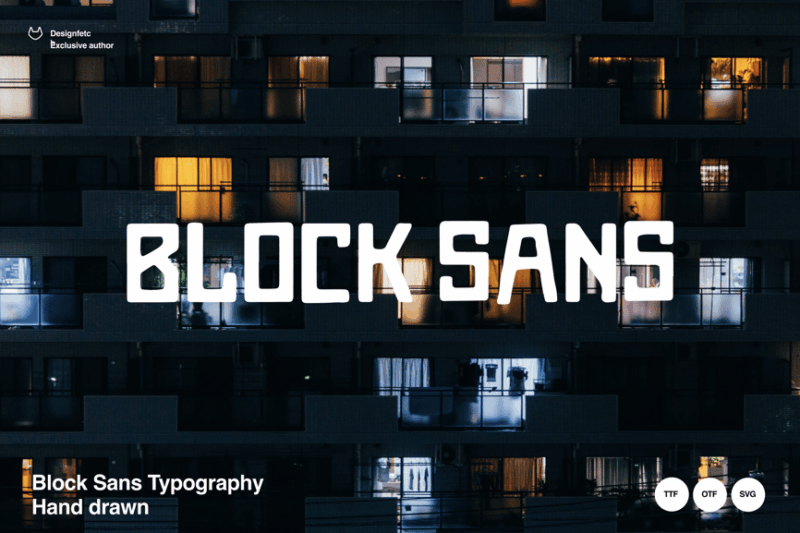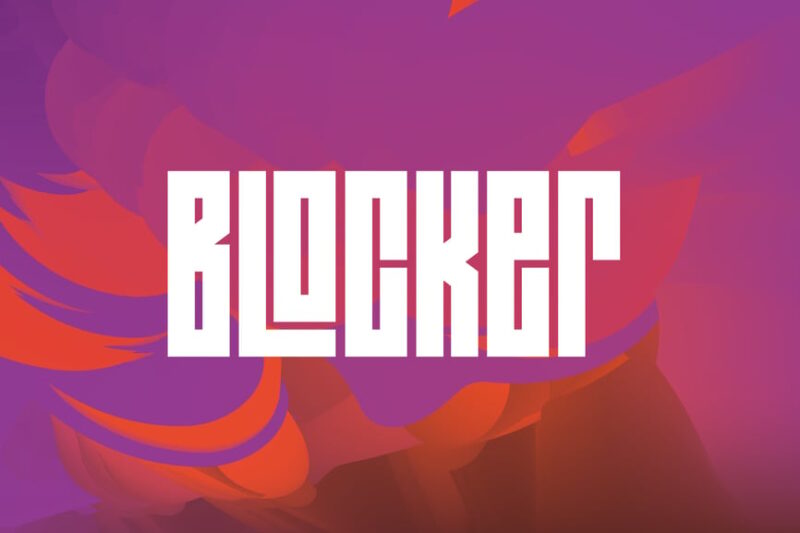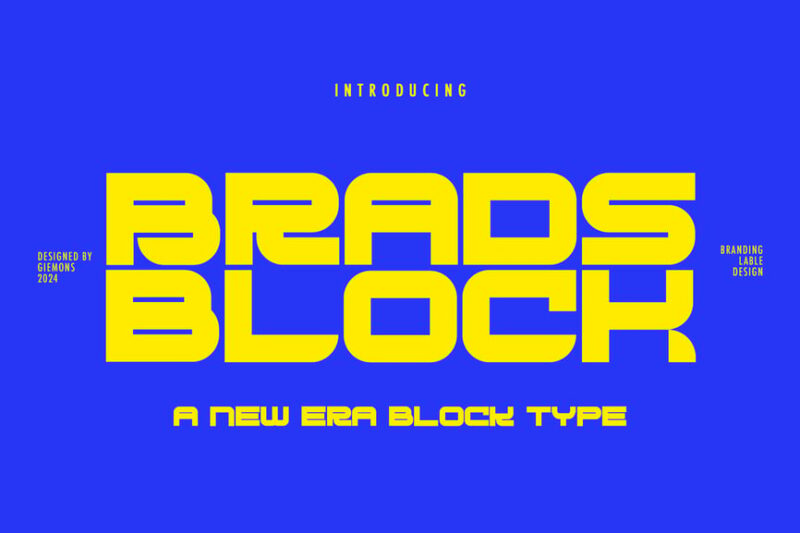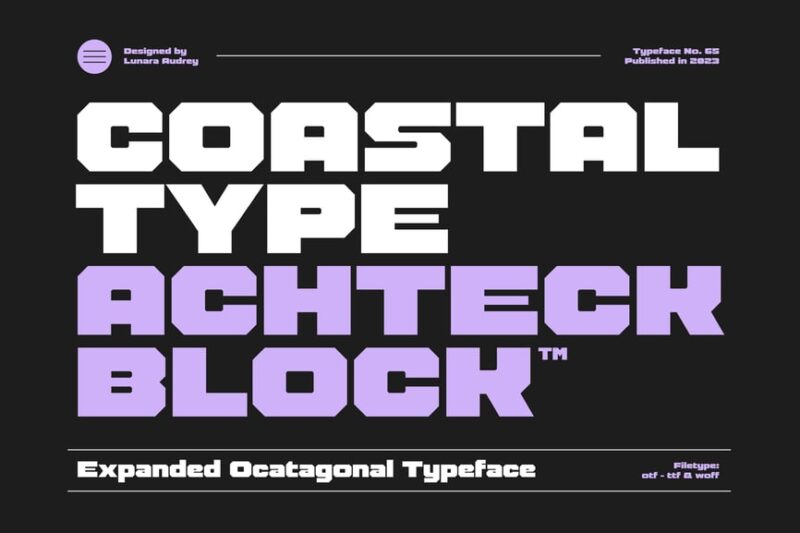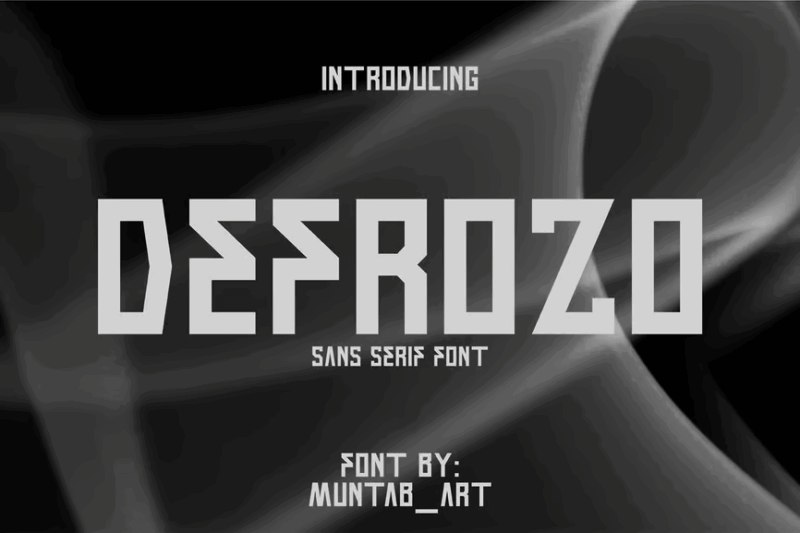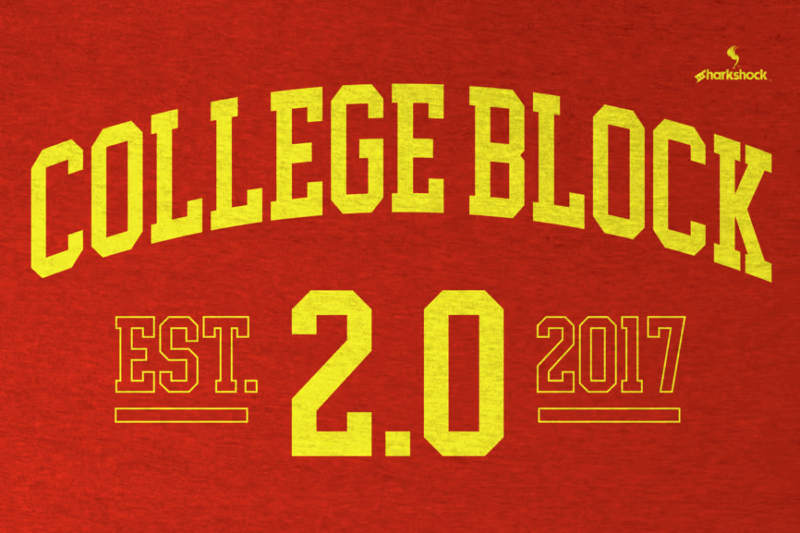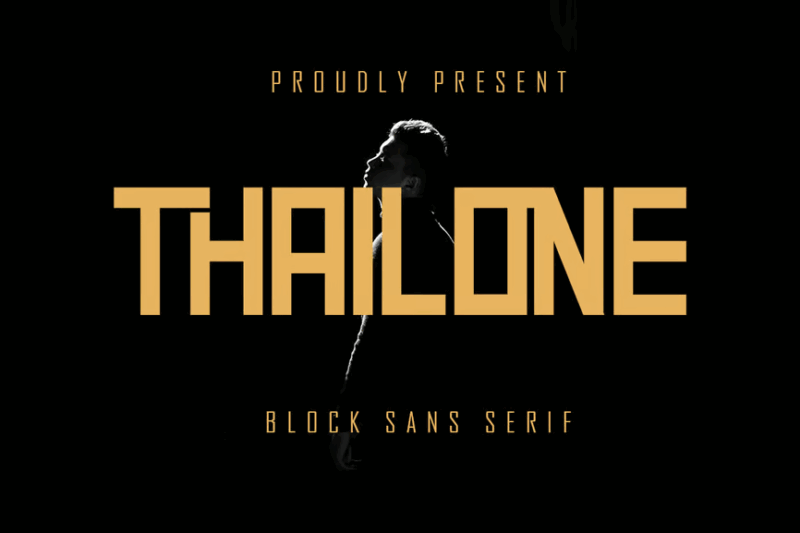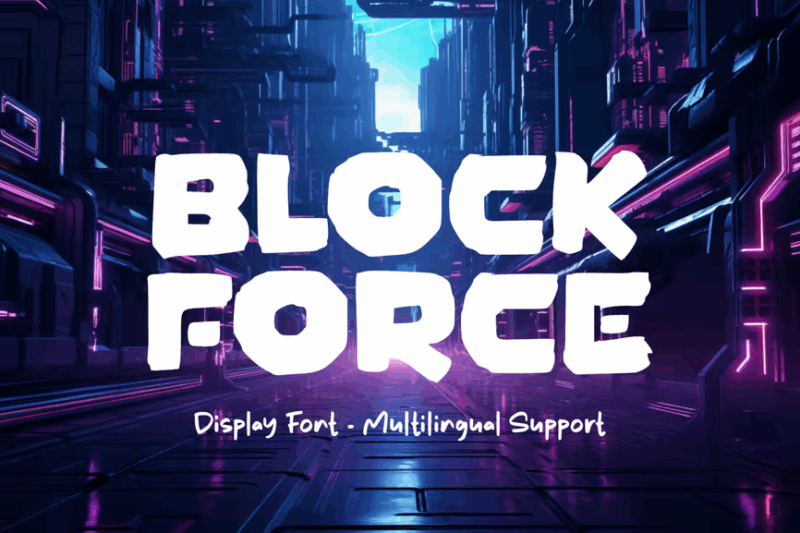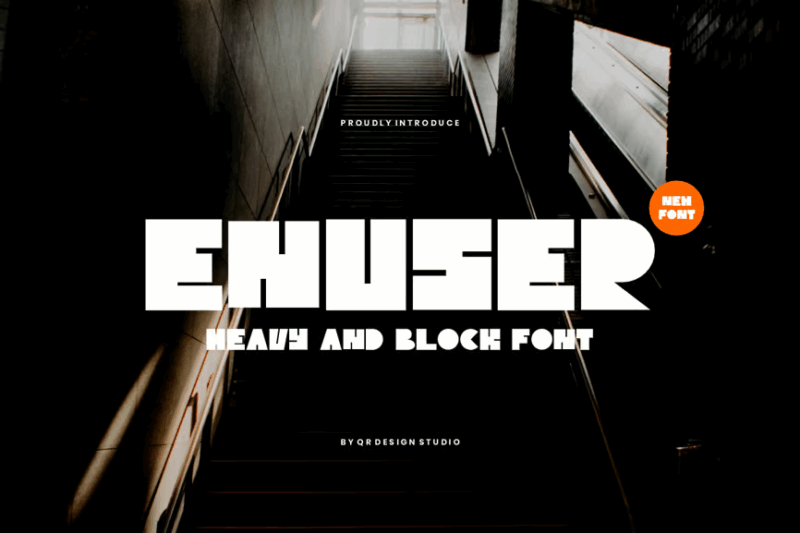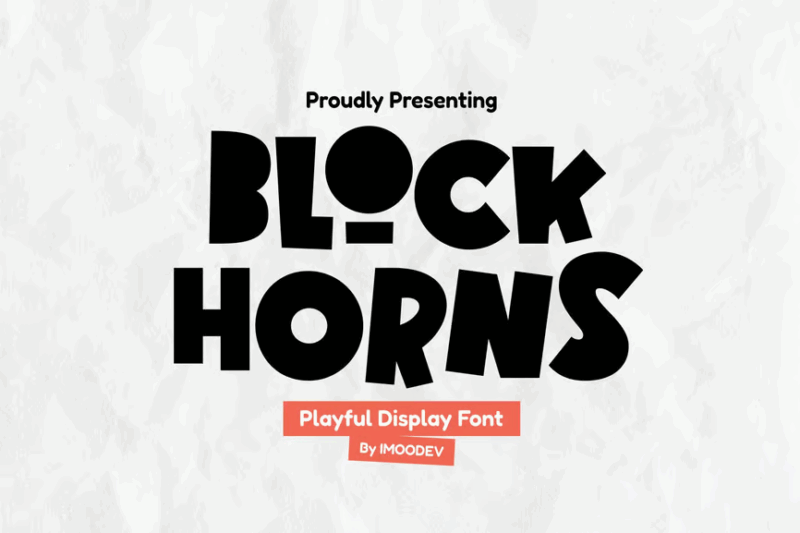
If you’re like me, you’re constantly searching for fonts that make bold statements and leave lasting impressions. Enter block fonts: the typographic powerhouses that command attention through their solid, geometric forms and striking visual weight.
Block fonts are characterized by their sturdy, rectangular letterforms that appear as if carved from solid material. With their strong presence and unmistakable silhouettes, these fonts have become essential tools for designers looking to create impactful headlines, powerful logos, and eye-catching displays that simply can’t be ignored.
Danegren
Danegren is a round, organic and bold font with a chalk-like texture and condensed structure. Its playful yet bold character makes it suitable for educational materials, casual branding, and designs that need to combine friendliness with strong visual impact.
Redig
Redig is a bold sans-serif font with a newspaper-inspired design. Its strong presence and clear readability make it ideal for headlines, mastheads, and designs that need to convey authority and importance, particularly in editorial and journalistic contexts.
Inner
Inner is a modern sans display font with a bold, confident character. Its clean lines and strong presence make it ideal for corporate branding, impactful headlines, and designs that need to convey professionalism and modernity.
Porcine
Porcine is a modern typeface with a strong, bold presence. Its unique character and web font compatibility make it versatile for both print and digital designs, particularly suited for projects that require a distinctive, contemporary look.
Blocker
Blocker is a decorative sans-serif font with a strong geometric influence. Its blocky and bold character makes it ideal for impactful designs, particularly in large sizes for posters, banners, or digital media where visibility is key.
Block Sans
Block Sans is a bold and modern typeface that combines elements of script and handwritten styles with a blocky aesthetic. It’s perfect for creating eye-catching headlines and logos that demand attention while maintaining a touch of personality.
Brads Block
Brads Block is a unique sans-serif font that incorporates subtle serif elements, creating an interesting hybrid style. This font is versatile enough for both modern and traditional designs, offering a fresh take on classic typography.
Lock Block
Lock Block is a striking display font designed with magazine layouts in mind. Its bold, blocky structure makes it perfect for headlines and covers, commanding attention and conveying a sense of strength and stability in design.
Achteck Block
Achteck Block is an expanded sans-serif font that exudes strength and confidence. Its wide letterforms and bold lines make it an excellent choice for designs that need to make a strong visual impact, particularly in branding and advertising.
Defrozo
Defrozo is a versatile block font that combines elements of sans-serif and serif styles. Its urban aesthetic makes it perfect for contemporary designs, street art-inspired graphics, and projects that require a bold, edgy typography.
College Block 2.0
College Block 2.0 is a thick serif font with a classic collegiate feel. Its robust design and Cyrillic support make it ideal for academic-themed projects, sports team branding, and designs that need to convey tradition and strength.
Thailone
Thailone is a block sans-serif font with decorative elements, designed for commercial use and logo creation. Its unique character makes it stand out in branding projects, offering a blend of professionalism and creative flair.
Block Force
Block Force is a display font that combines elements of script and handwritten styles with a blocky structure. It’s particularly suited for brand identity projects, offering a unique blend of strength and personality in its letterforms.
Enuser
Enuser is a heavy, block-style sans-serif font that’s well-suited for travel and sports-related designs, particularly football. Its bold presence makes it ideal for headlines, logos, and other high-impact design elements.
Block Horns
Block Horns is a friendly font that balances modern design with a touch of cuteness. Its unique character makes it suitable for a wide range of projects, from playful branding to contemporary editorial designs.